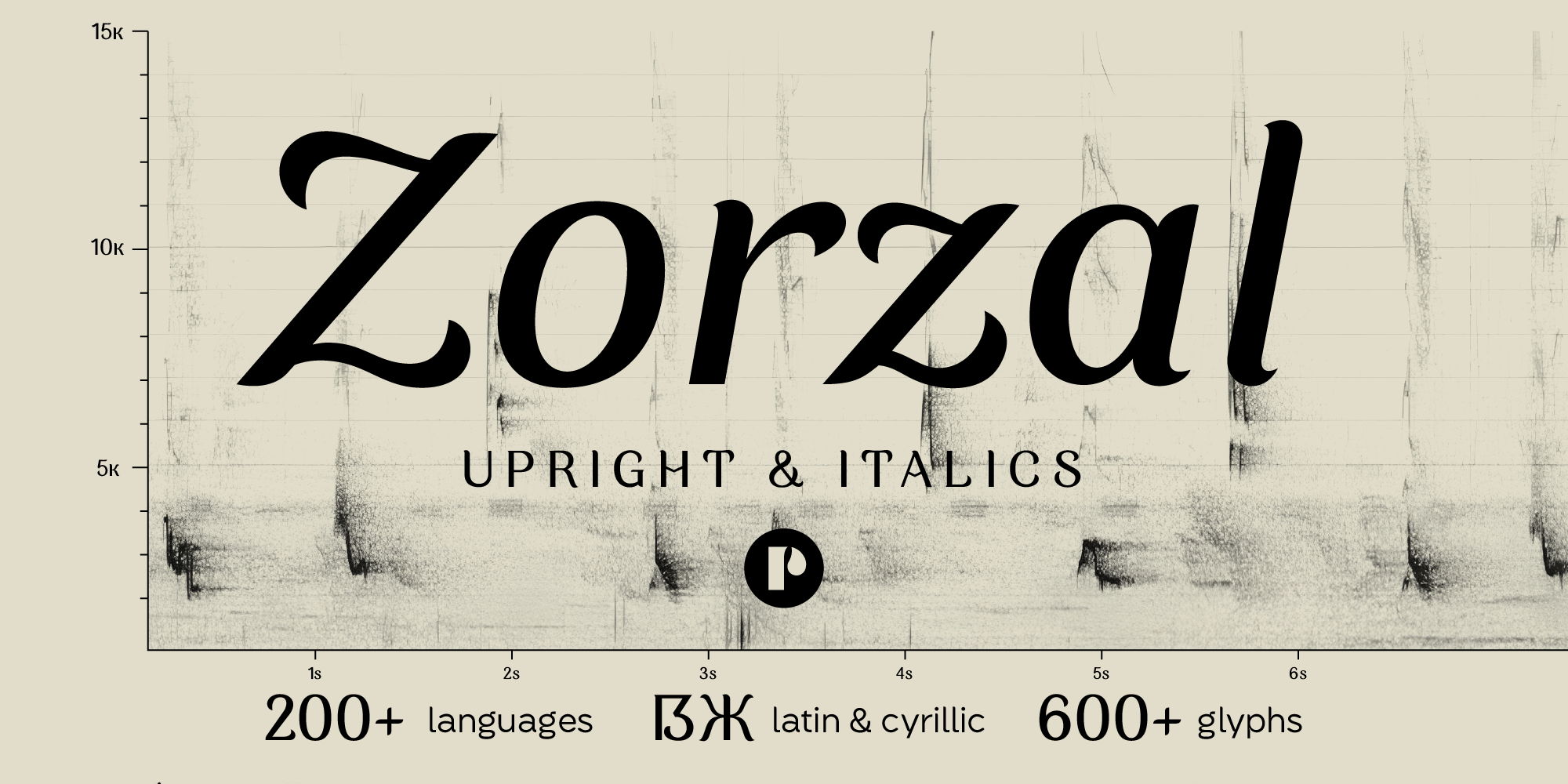
Zorzal Font is perfect for nature conservation campaigns, birdwatching society materials, wildlife photography portfolios, ornithology research publications, eco-tourism branding, natural park signage, birding festival posters, and environmental education graphics. Its melodic character makes it ideal for projects celebrating avian beauty and natural harmony.
What makes Zorzal Font exciting is its enchanting ability to capture the melodious essence of thrush song through gracefully flowing letterforms that soar with natural elegance and avian poetry. The organic construction features delicate curves with birdsong rhythm that embodies the essence of forest melodies and natural symphony. This typeface embodies avian grace and natural musicality, making every design feel harmoniously connected to the beautiful world of birdsong.
Zorzal Font family includes Regular, Bold, Light, Italic, Song, and Natural variations, providing designers with comprehensive tools for creating beautiful nature-inspired typographic compositions that celebrate the melodic world of birds and environmental harmony.
Sing with natural beauty through the melodic elegance of Zorzal Font Free Download. This harmonious typeface brings avian poetry to any creative project, whether you're developing brand identities for conservation organizations, crafting promotional materials for nature centers, or designing graphics for environmental causes. The font's birdsong-inspired architecture and natural presence make it essential for projects requiring authentic environmental appeal. Zorzal Font perfectly captures the essence of natural melody while ensuring excellent readability across all conservation applications. Its graceful character forms and nature-inspired design language make it ideal for brands seeking to communicate environmental harmony and natural beauty, delivering memorable results that resonate with audiences who appreciate wildlife conservation, natural symphonies, and the enchanting melodies of thrushes that fill forests with their beautiful songs and remind us of nature's precious gifts.